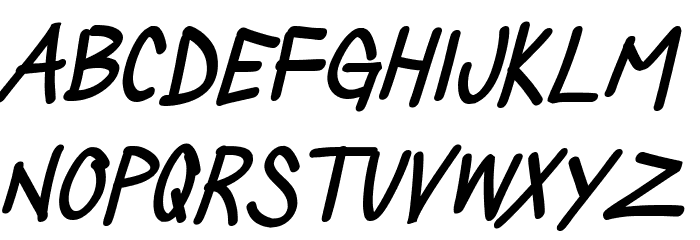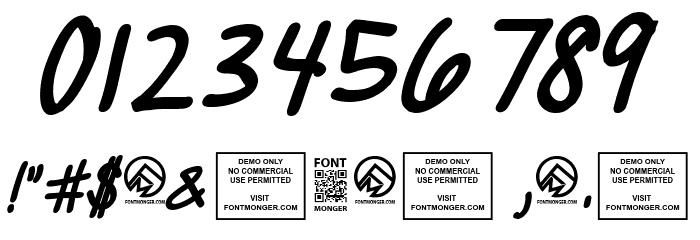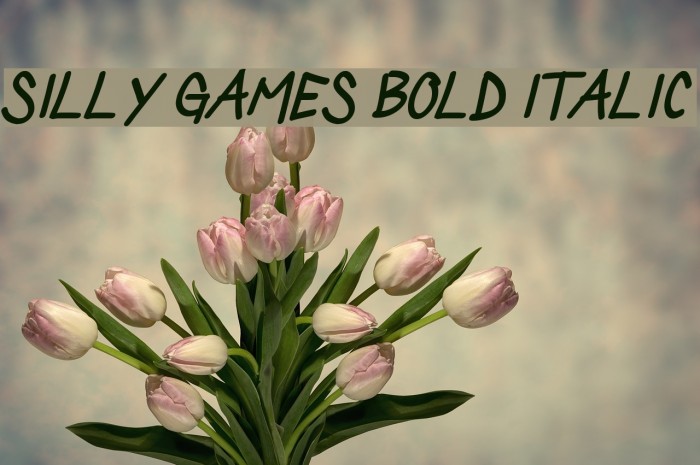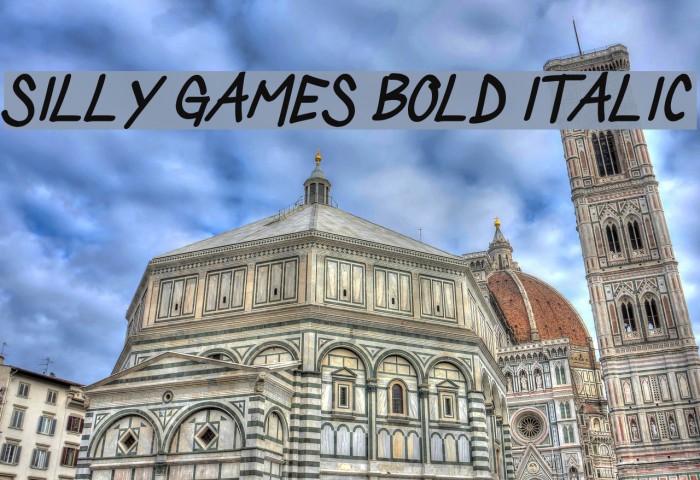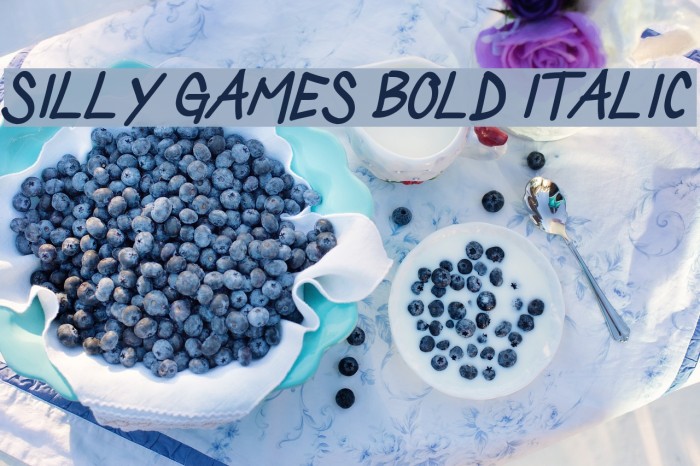
Silly Games Bold Italic Font
This playful and energetic font features bold, italicized characters with a handwritten style. The letters are slightly slanted, giving a dynamic and lively appearance. The strokes are thick and consistent, providing a strong visual impact. The font maintains a casual and informal tone, making it suitable for creative and fun projects. The character set includes uppercase and lowercase letters, numbers, and a selection of special characters, all maintaining the same whimsical style.
A bold, italicized handwritten font with a playful and dynamic style.
- Proposed Projects: Ideal for children's books, playful branding, greeting cards, and creative posters.
- Overall Style: Playful